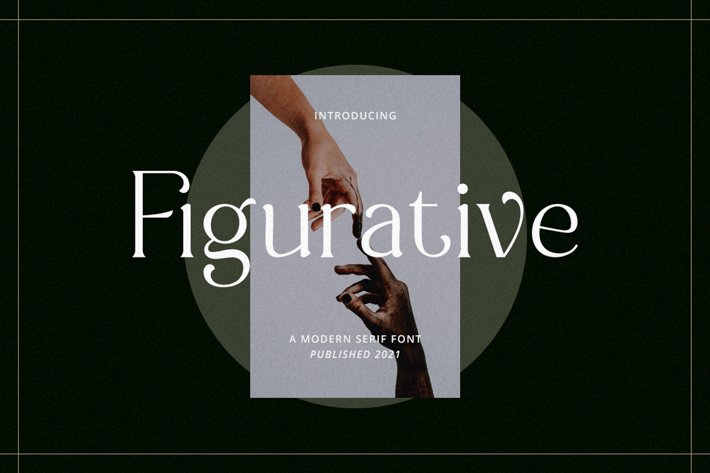
Figurative - Elegant Serif Font
Figurative is a distinct, elegant and authentic serif font. Masterfully designed to become a true favorite, this font has the potential to bring each of your creative ideas to the highest level!